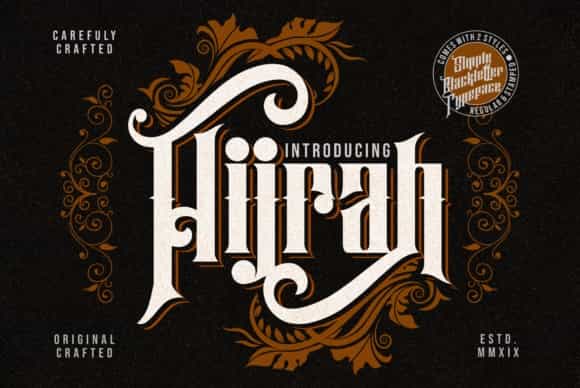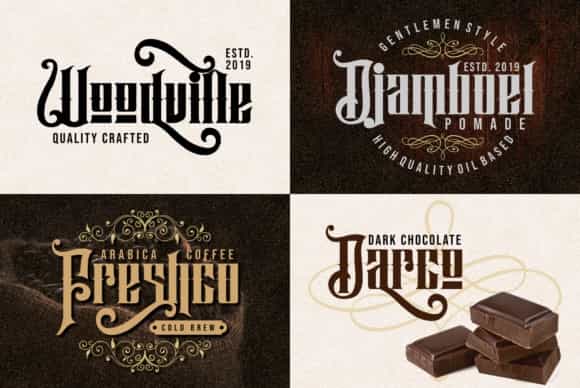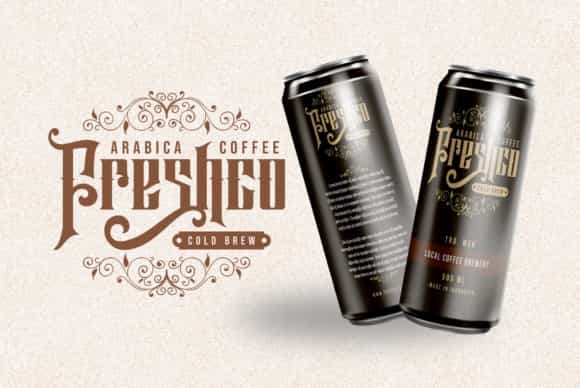
Hijrah Display Gothic Font
Hijrah is Blockletter Decorative Serif Display Gothic Font which is contributed and designed by Omotu. It is a gothic font with a very classic touch and a very nice aesthetic to it. Use it for any design project that calls for that certain look which has to do with the public persona!